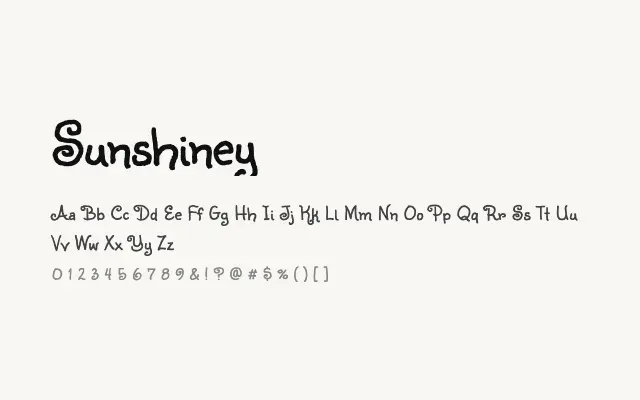
Sunshiney
A light-hearted, sunny handwriting script with an informal, carefree personality.
Sunshiney mimics the effortless feel of casual handwriting, with loose, airy letterforms that convey optimism and approachability. It is best deployed at large sizes for short display text — invitations, social graphics, and informal branding benefit most from its cheerful character. The single weight and limited script support restrict its versatility considerably.
A light, informal handwriting script with a sunny, carefree quality and uneven, natural letterforms. The design evokes quick, cheerful pen lettering with minimal connecting strokes.